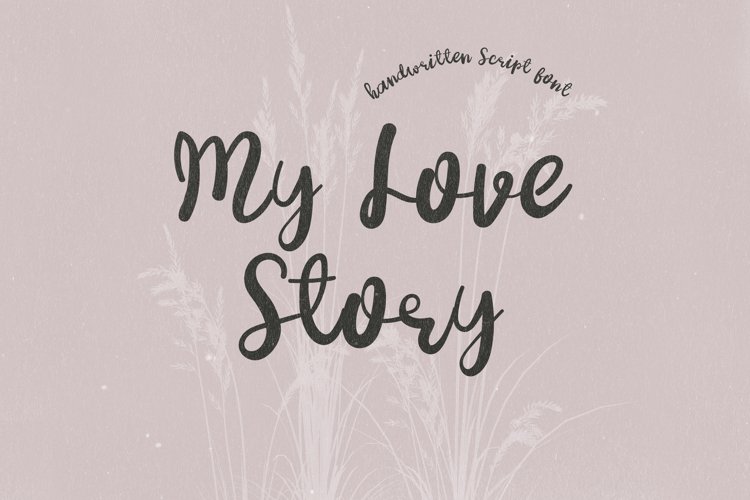
My Love Story is a lovely & quirky handwritten font. Get inspired by its incredibly cursive feel. Use this font to turn any design project into a standout!
It offers support for all characters of the English language. Numbers and standard punctuation glyphs are included.
My Love Story is perfectly suited for Quotes, Branding, Logos, Greeting Cards, Invitations, Stationery Design, Children's designs, T-shirts, Packaging designs, Poster, Typographic designs, Papercrafts, Digital crafts, and so much more!